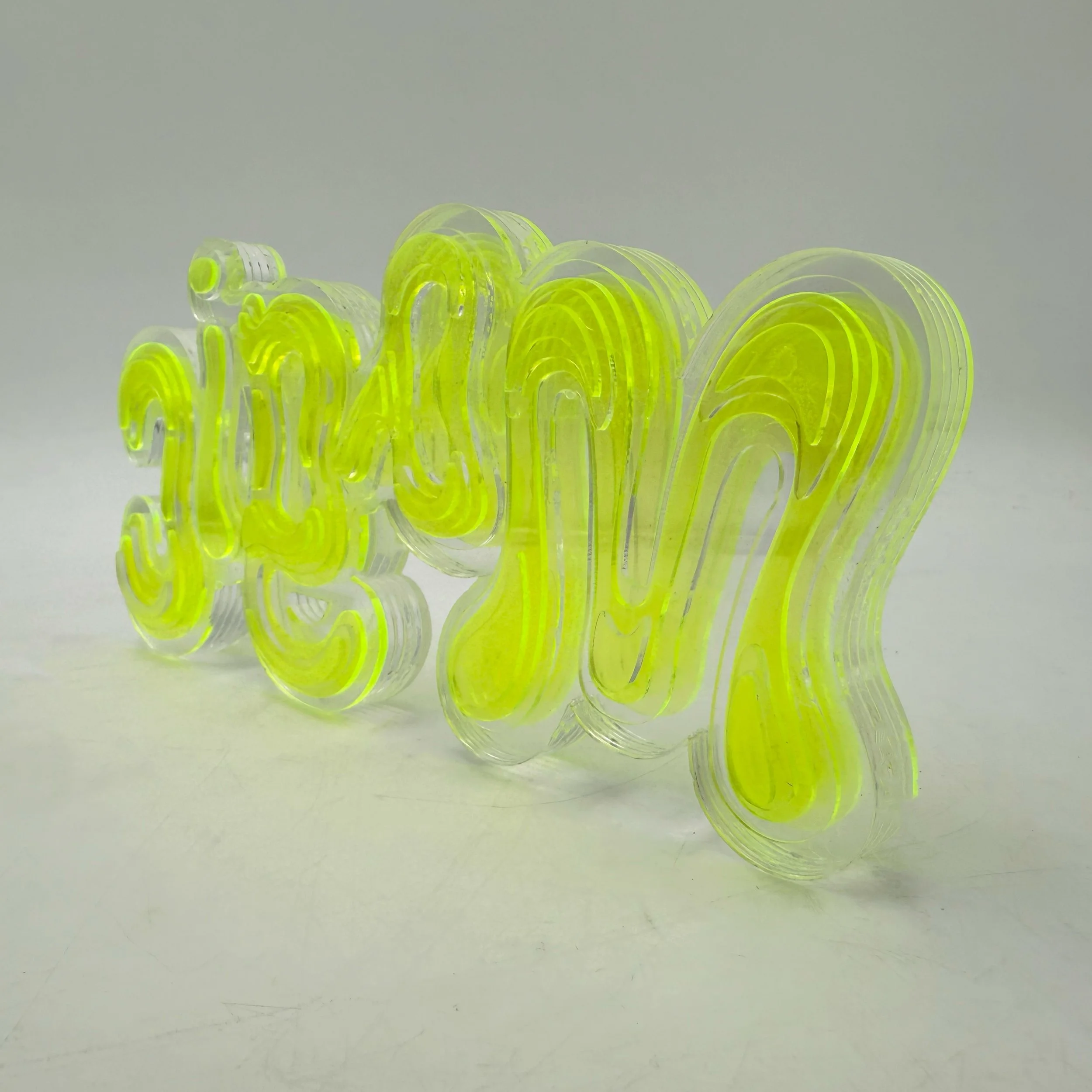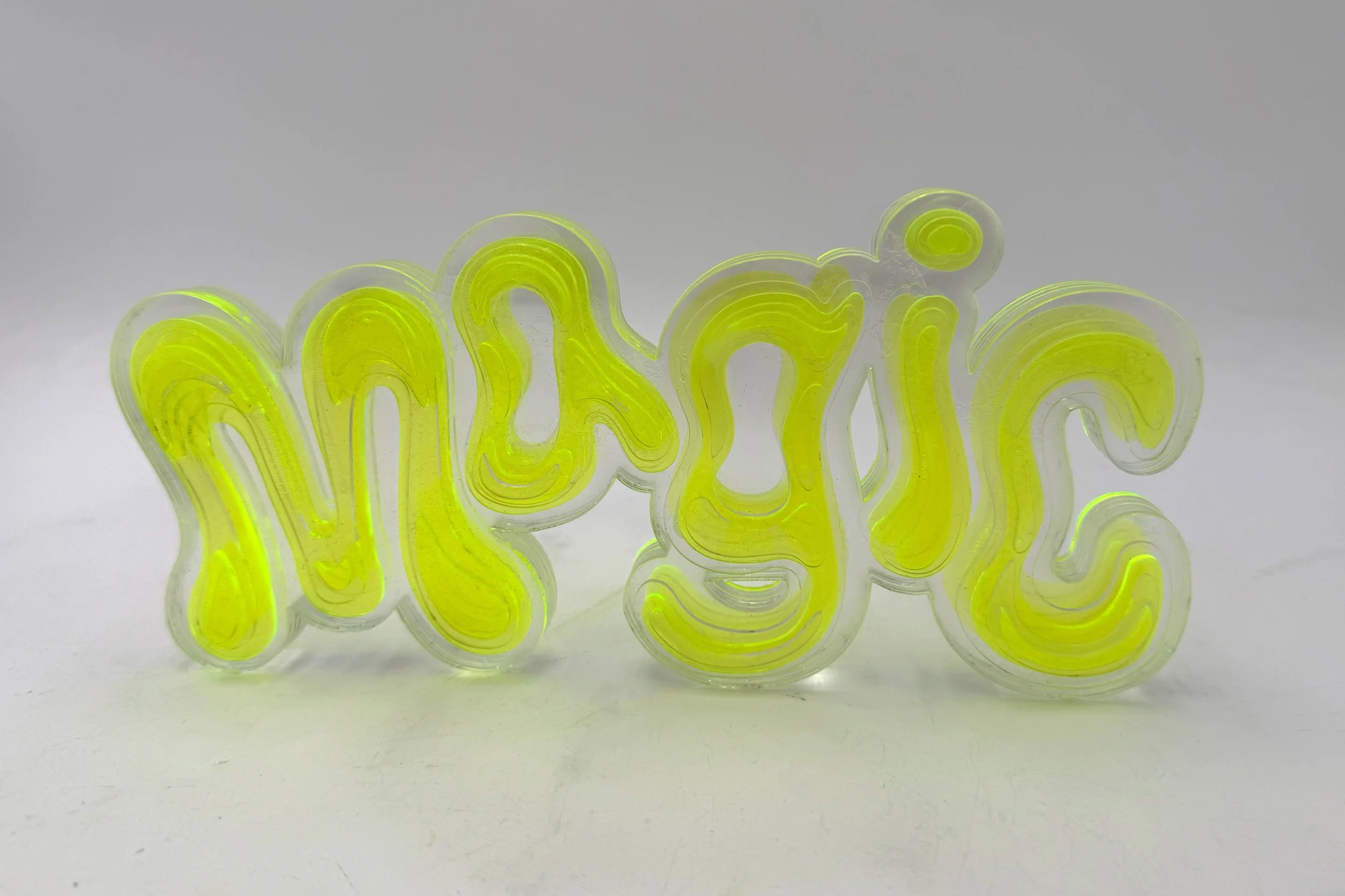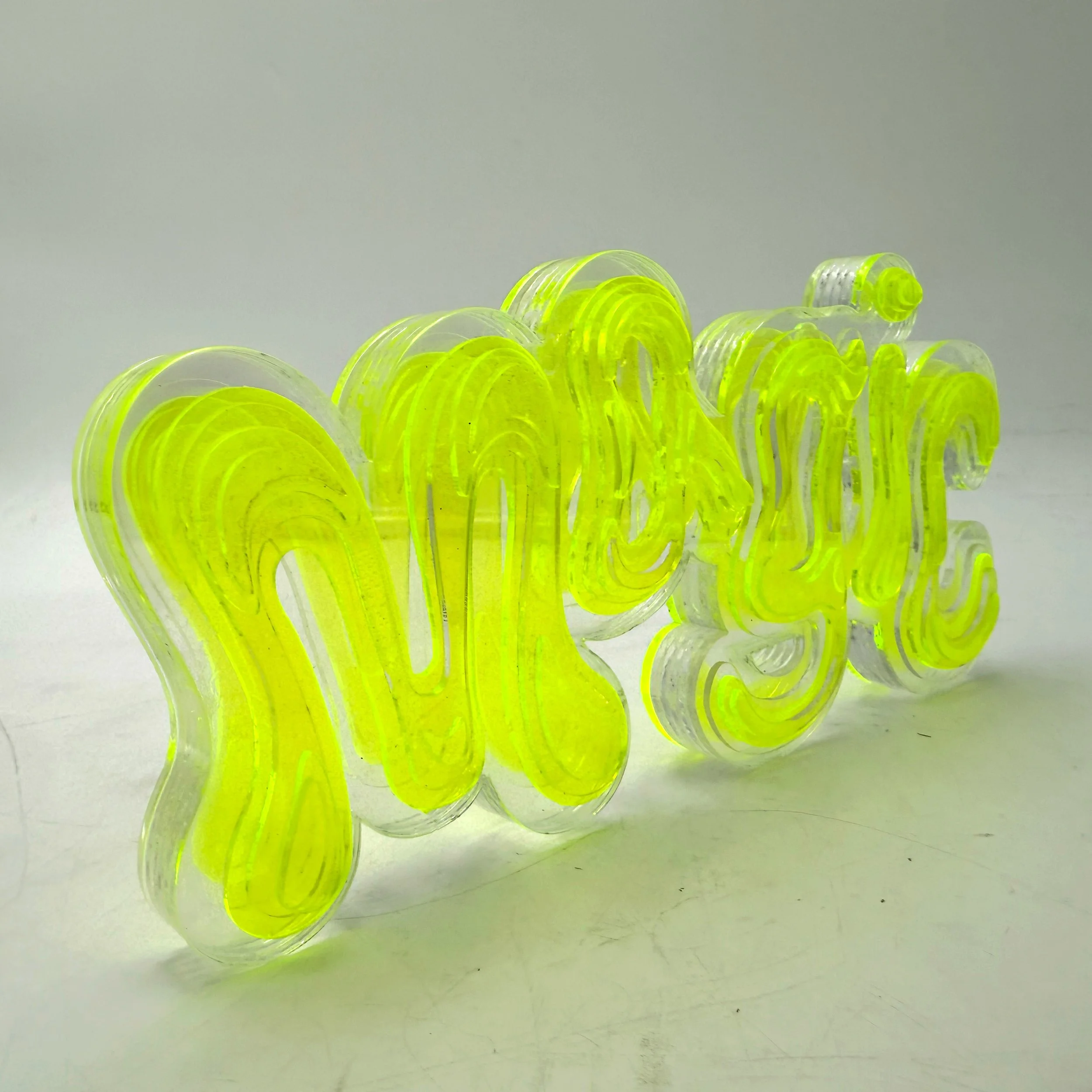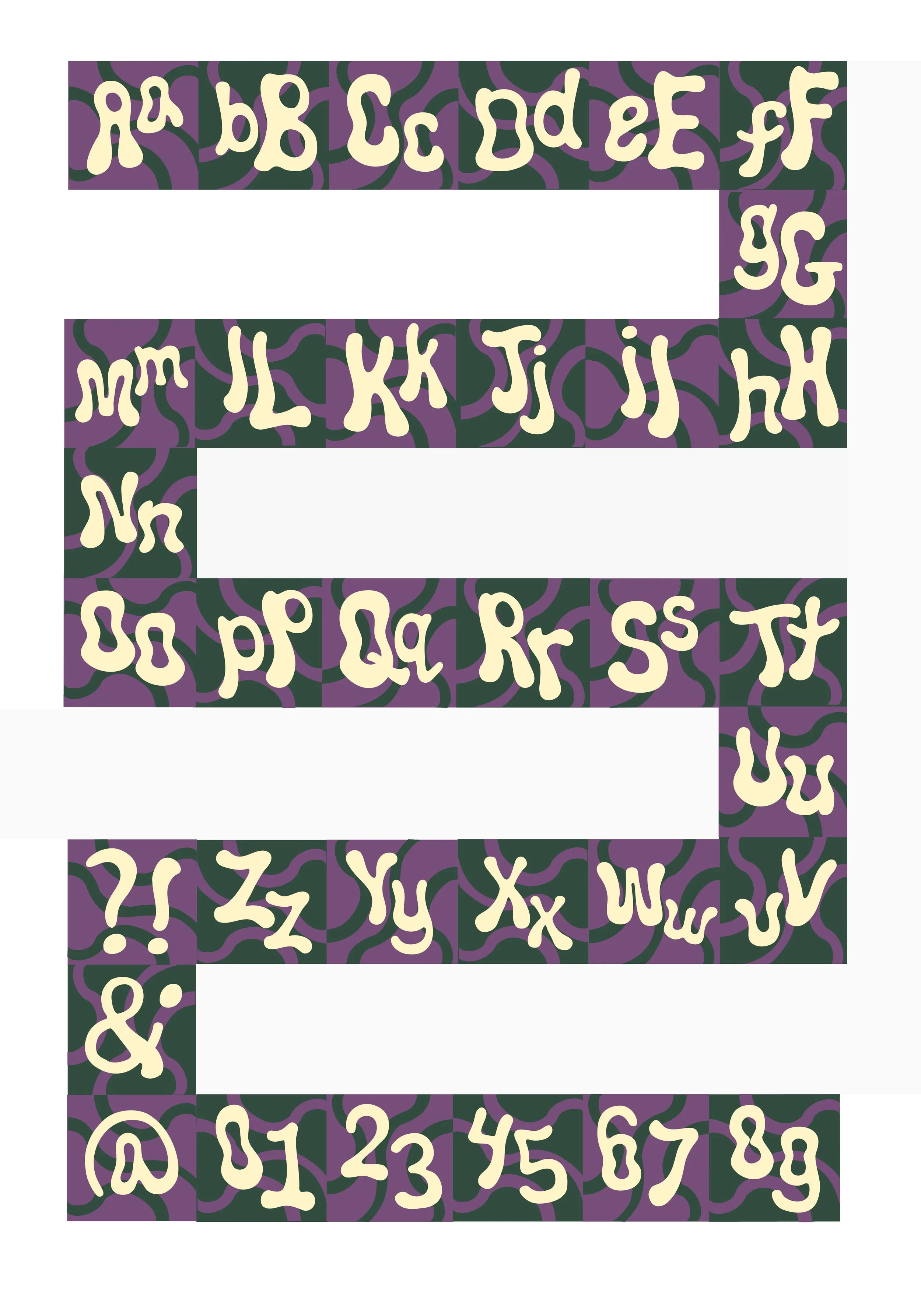
Magic Tree is a decorative font inspired by the organic movement and playful structure of broccoli. Broccoli’s branching stems, abundant amount of florets, and natural curves informed every letterform, translating the vegetable’s bendy silhouette into typographic expression. The font balances softness and structure, mimicking how broccoli feels lively and fun. Inviting viewers to see familiar forms in a new way, the typeface is designed to feel imaginative and slightly magical. A wise person once said “Broccolli is not that serious.”
For the 3D Translation, I created a sculptural piece composed of chemically bonded acrylic. I explored the contrast between acrylic’s rigid, industrial nature and the soft, bulbous curves of the Magic Tree font. Through layered geometry, the piece demonstrates how curves can be suggested and constructed through stacked, angular forms rather than continuous surfaces.
Ideation and Inspiration
Magic Tree is another name for broccoli, and the source of this font’s inspiration! From the drawings, I sketched over certain forms to take inspiration
Context Collage